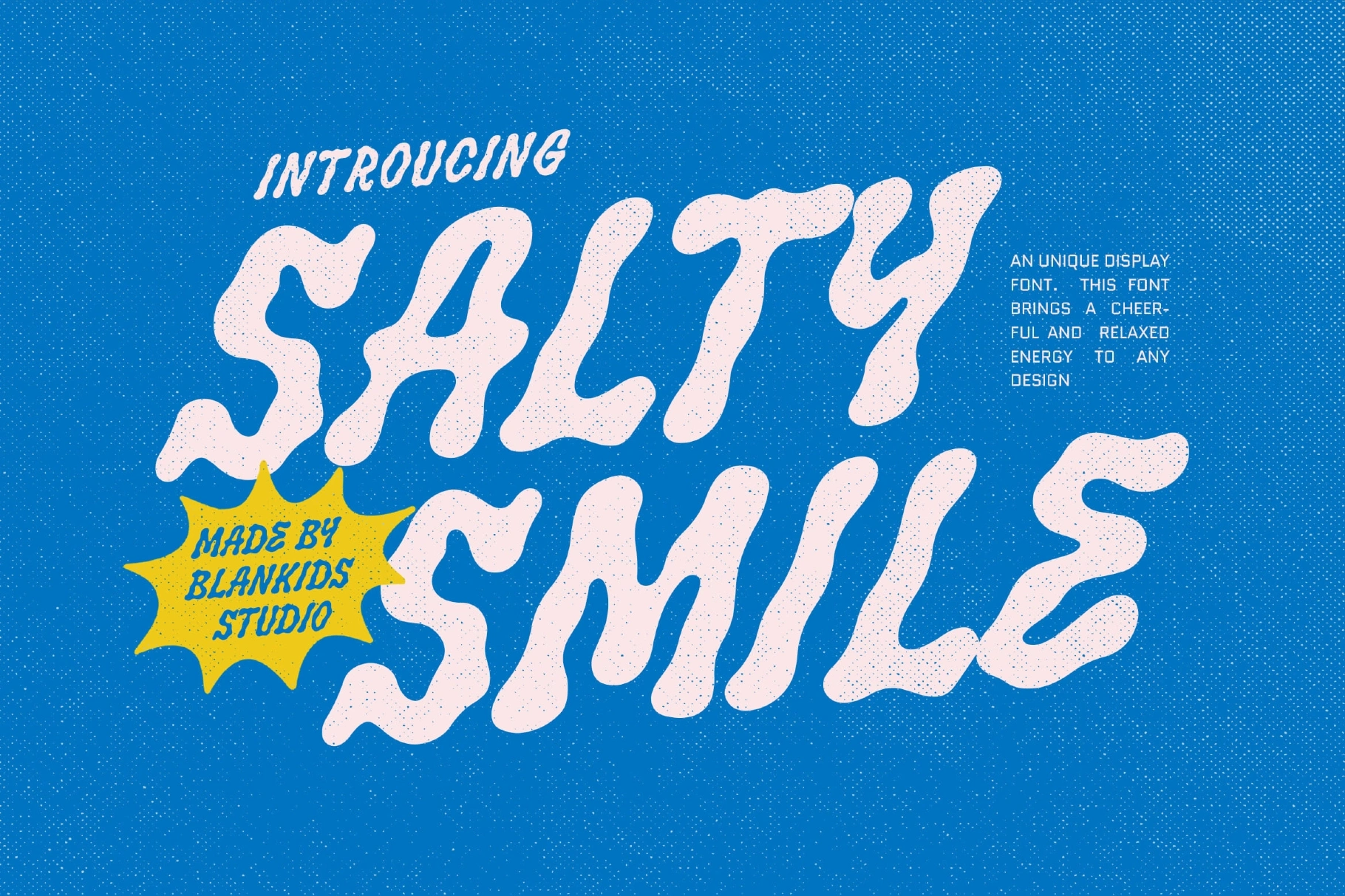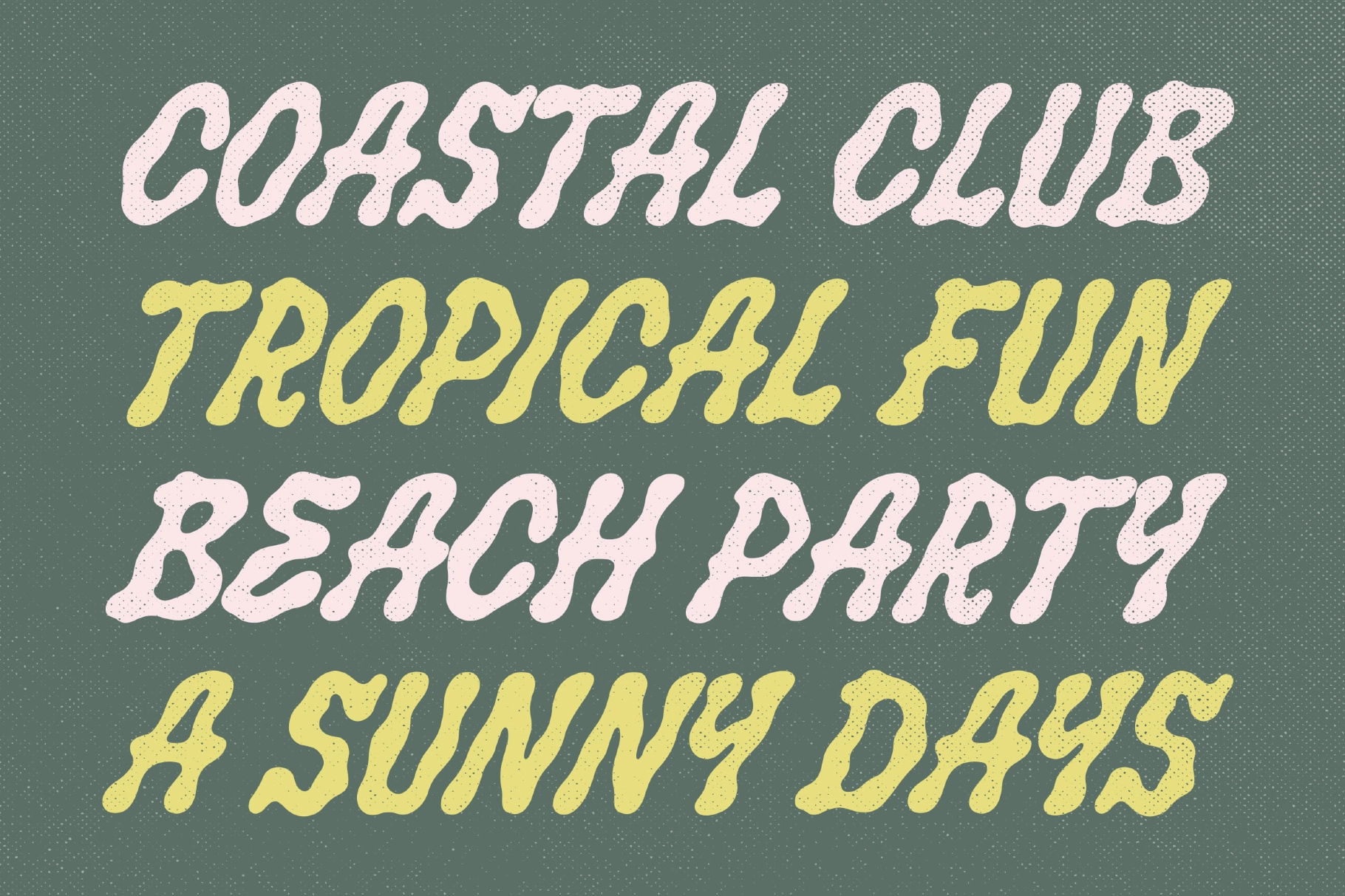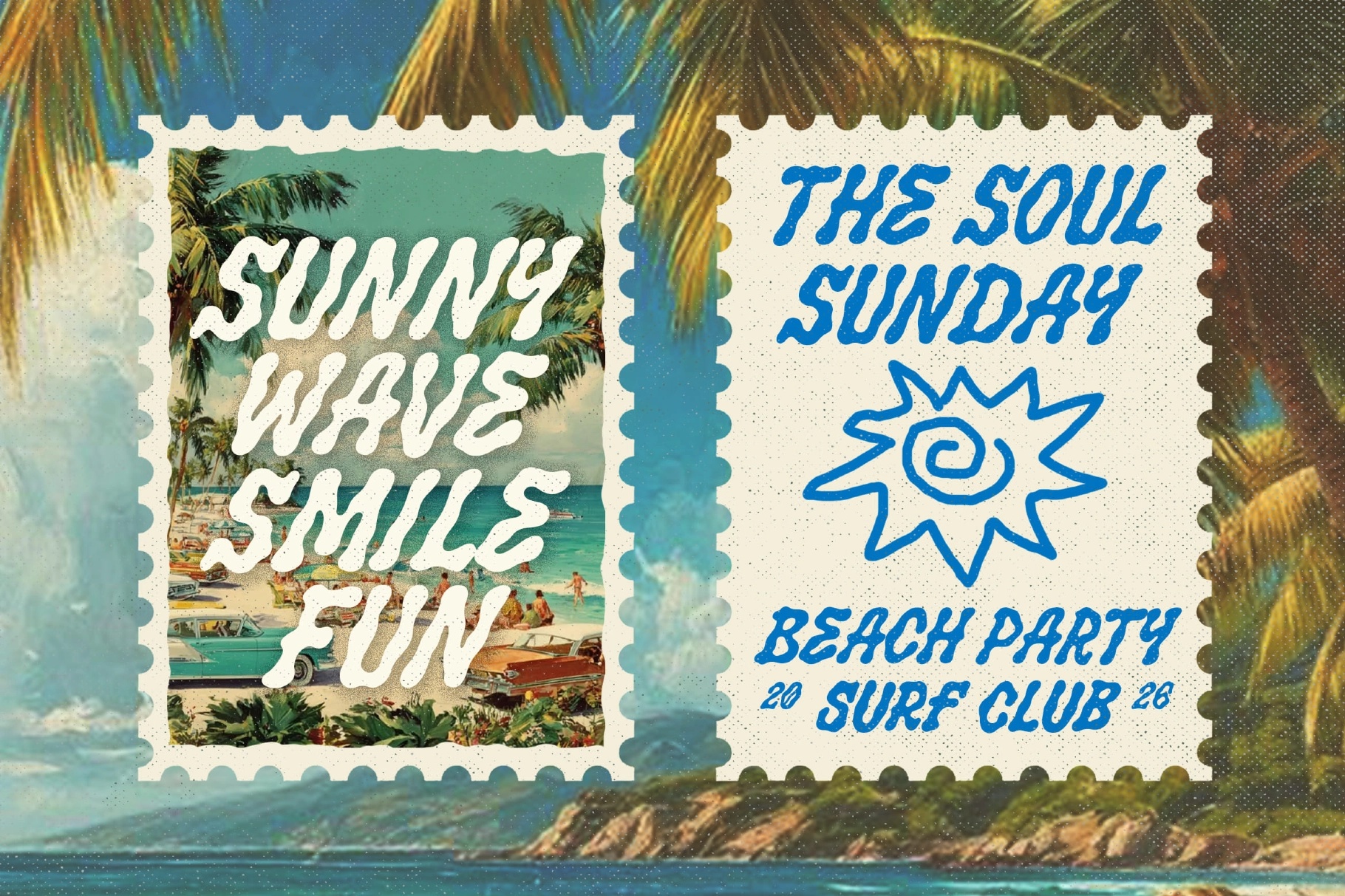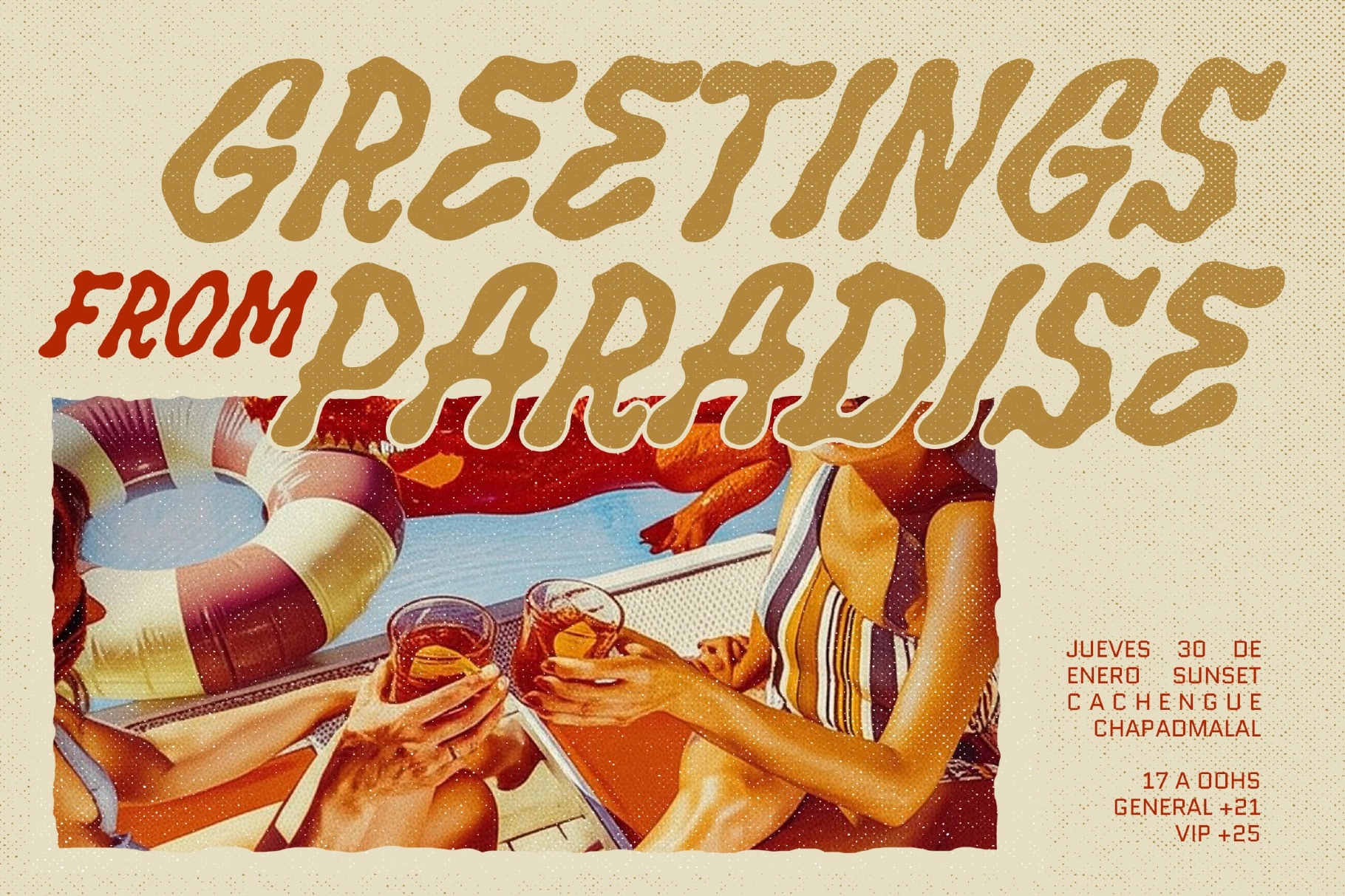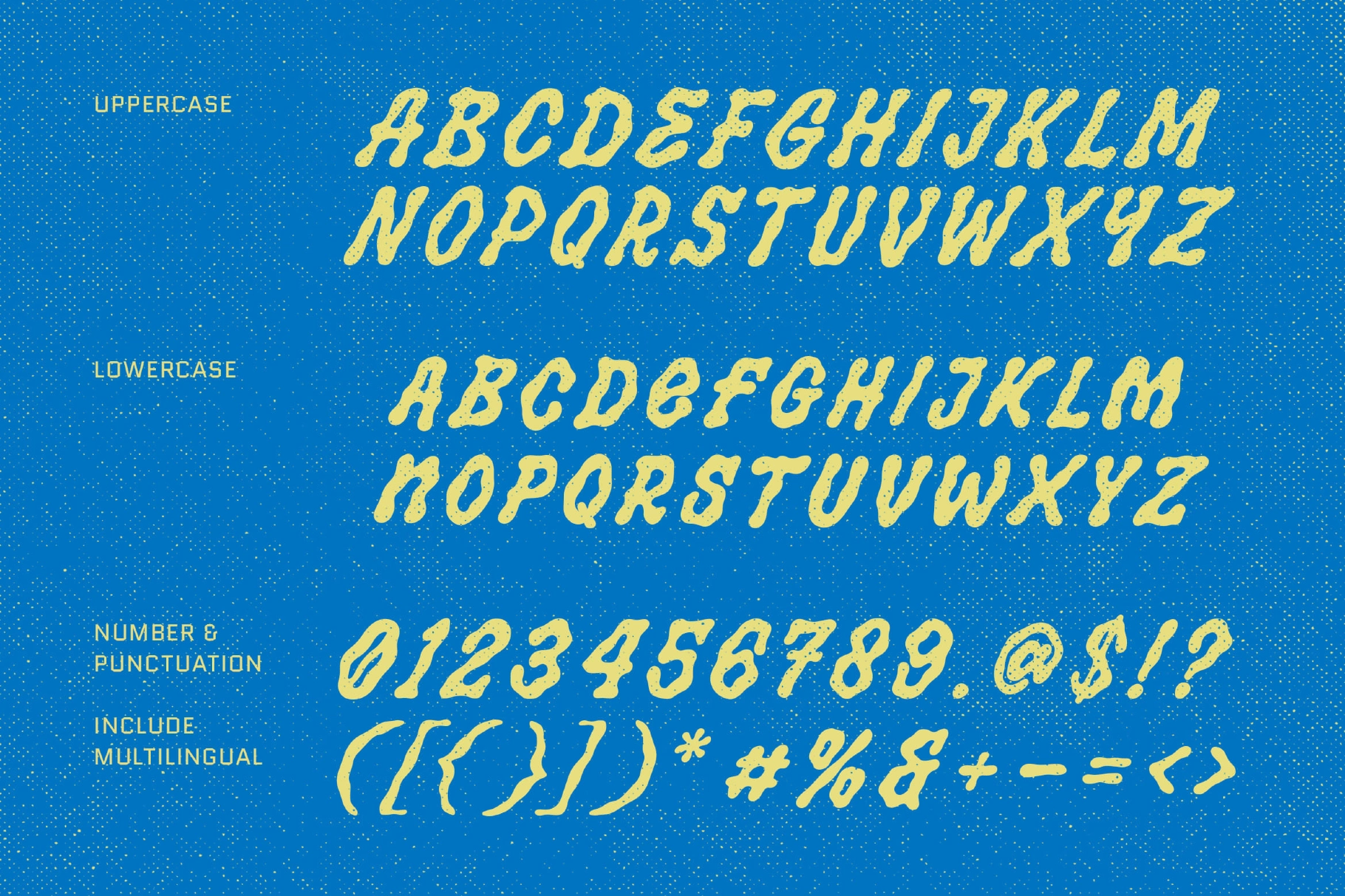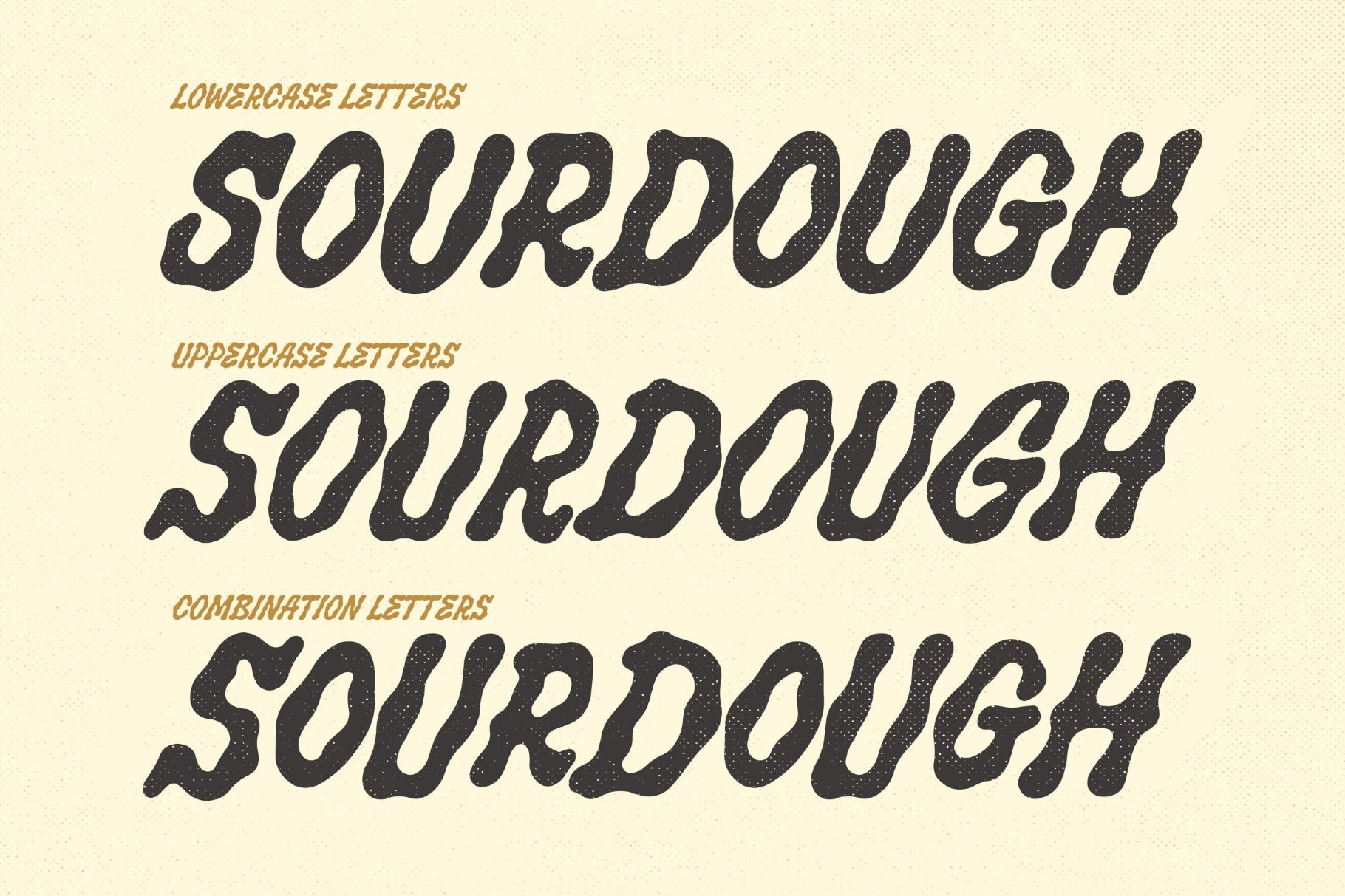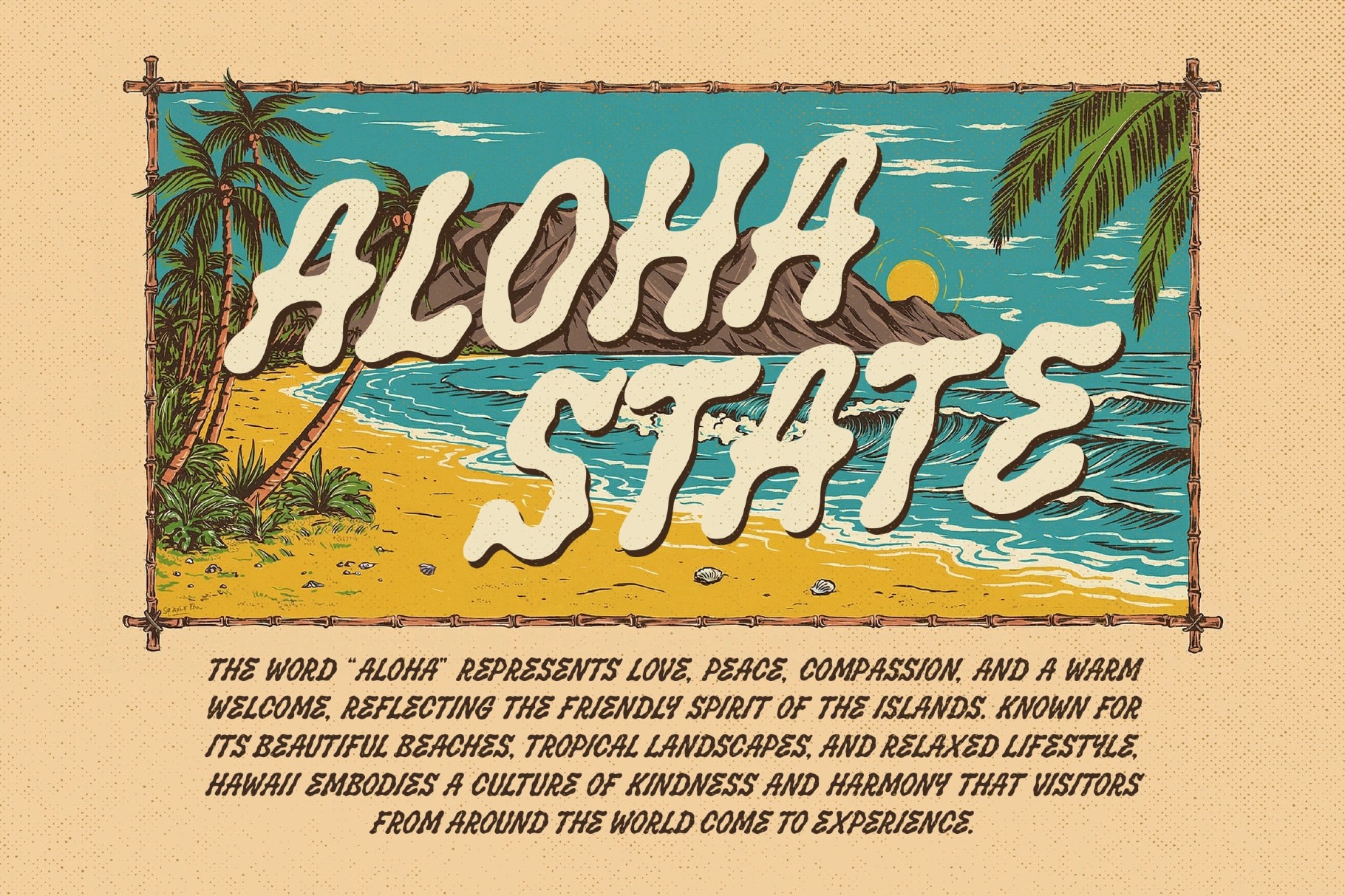
Salty Smile an Unique Wavy Display Font
Salty Smile
Salty Smile an Unique Wavy Display Font is a playful and cheerful typeface inspired by sunny beach days, ocean waves, and relaxed tropical vibes. With its soft, wavy shapes and bold personality, it brings a fun and friendly atmosphere to any design while maintaining a distinctive and eye-catching presence.
Perfect for branding, packaging, posters, social media, and beach-themed or retro-inspired projects, this font adds warmth, charm, and a carefree energy. Its organic, flowing letterforms create a lively and memorable look that instantly makes your visuals feel bright and engaging.
- Unique Wavy Display Style